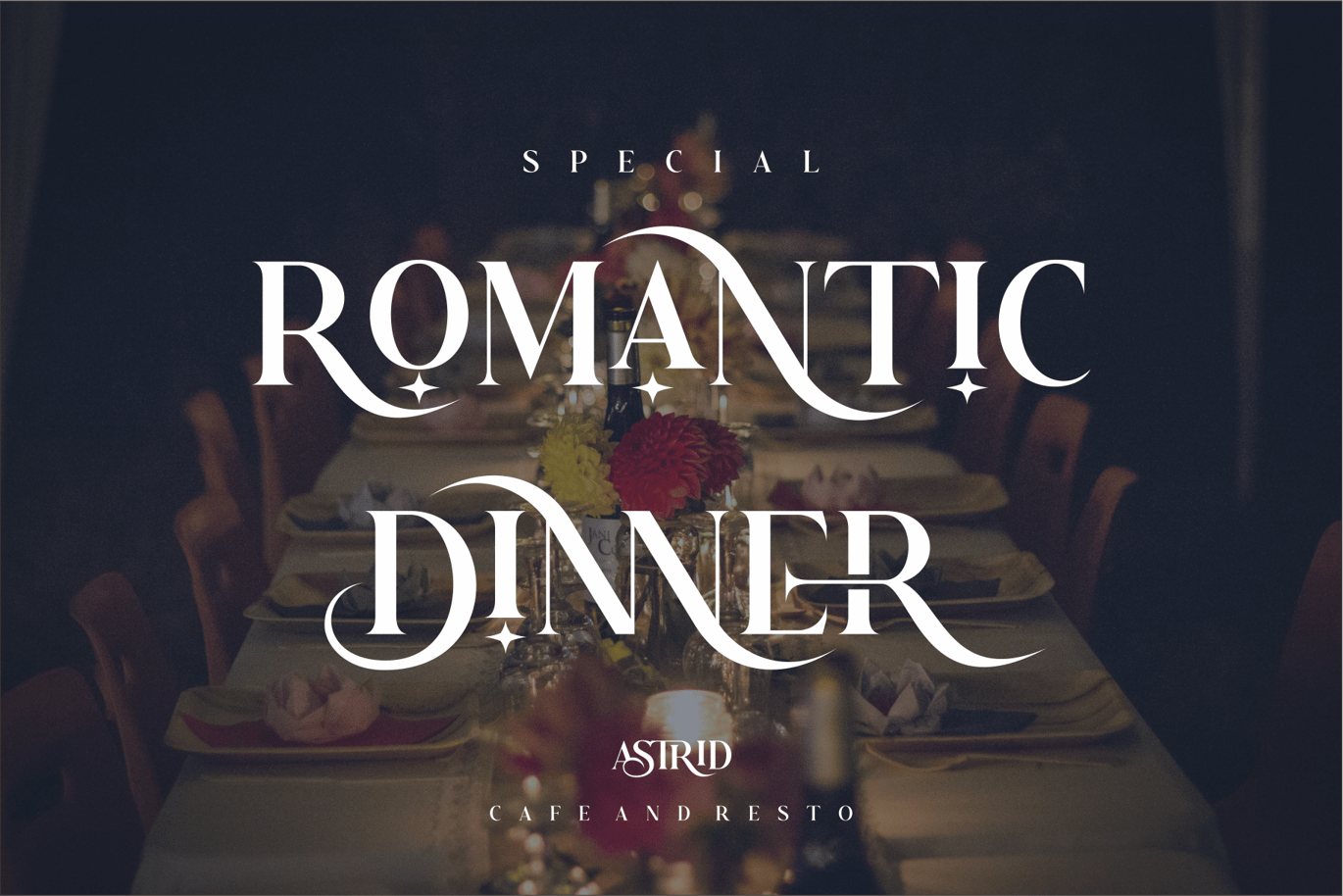
Astrid Elegant Ligature Typeface
ASTRID is a elegant and classy serif typeface – This font is both modern and nostalgic and works great for logos, magazine, social media. Already matched up and ready to be used together for your next design! For those of you who are needing a touch of elegant, stylish, classy, chic and modernity for your designs, this font was created for you!
Astrid was built with OpenType features and includes ligatures, numbers, punctuation, and it also supports other languages.